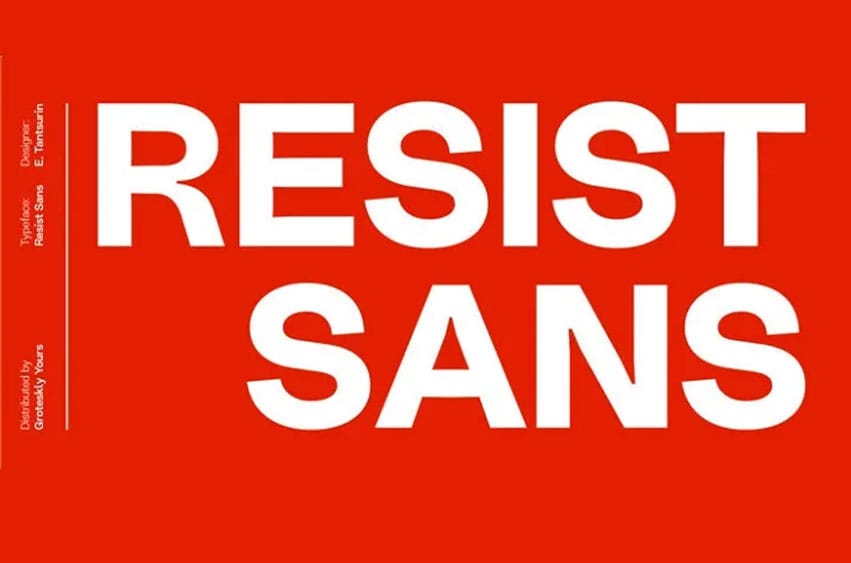
Resist Sans Font is a hard and general sans-serif type duo which can cope with the hardest tasks without problems.
The design is not only stylish but also has an intuitive user interface which are the two features that will make it a legend.